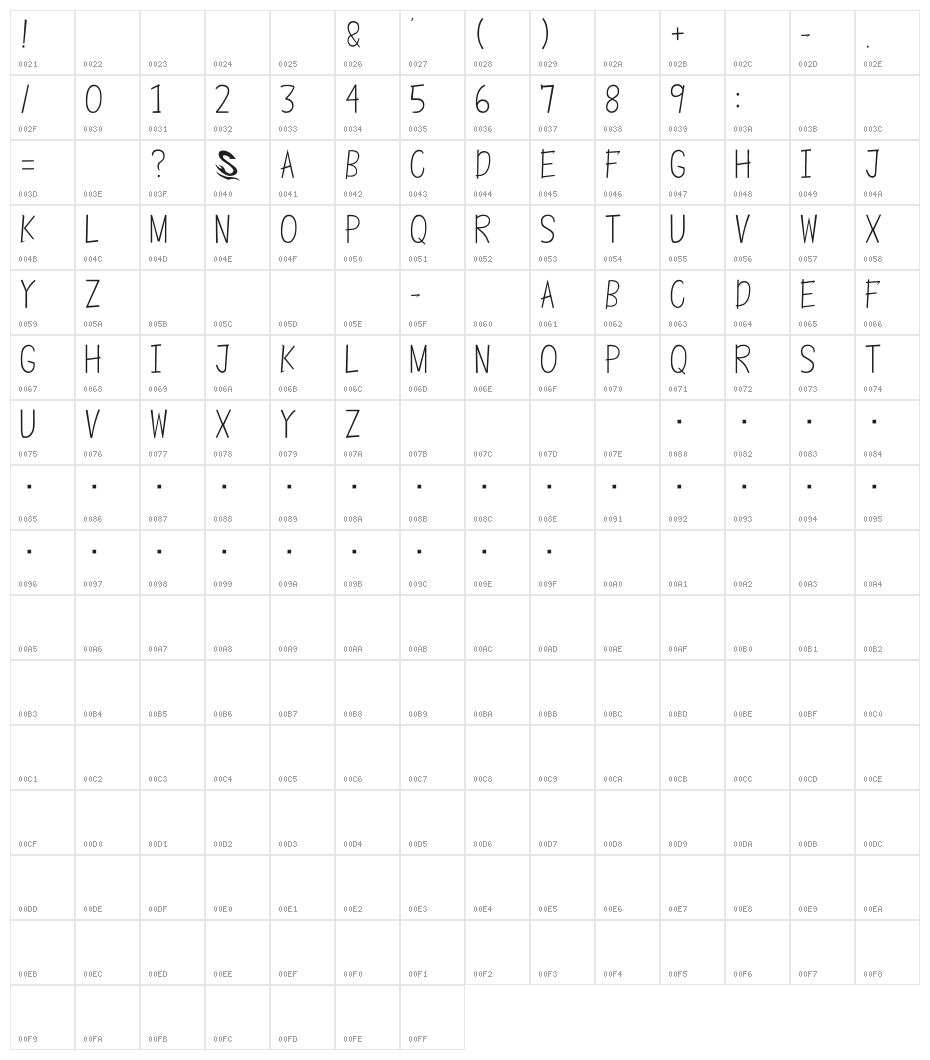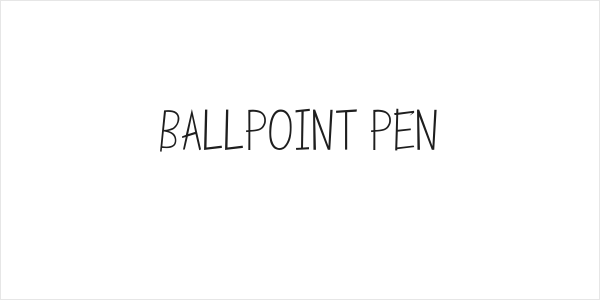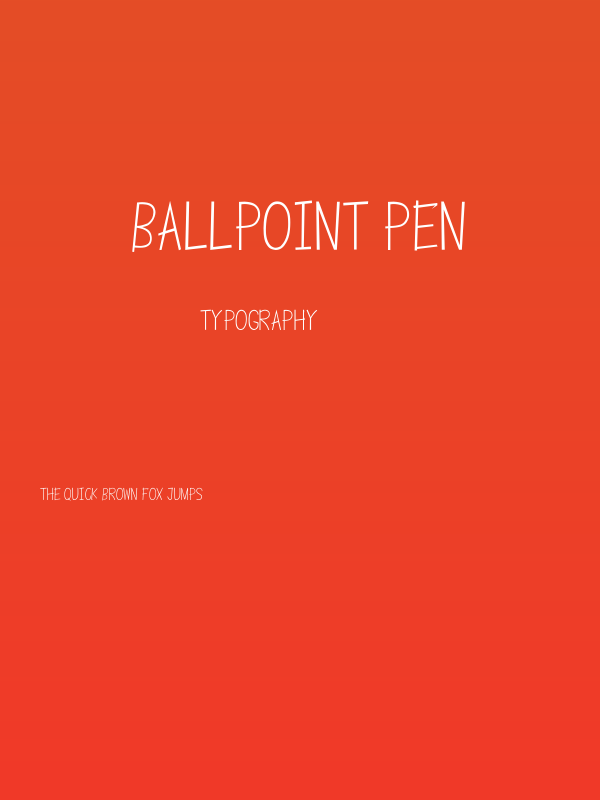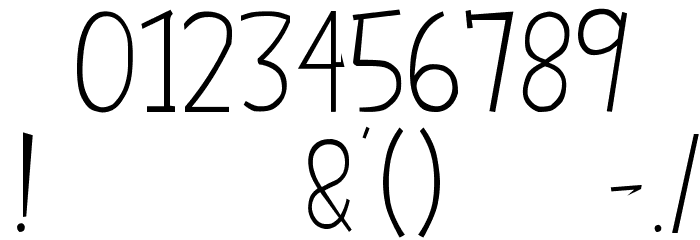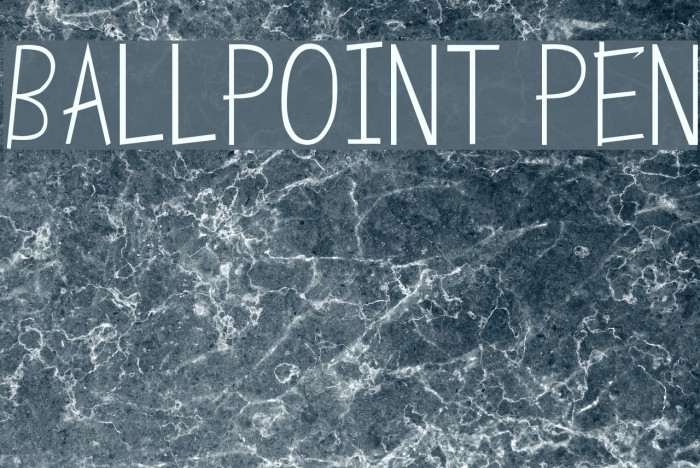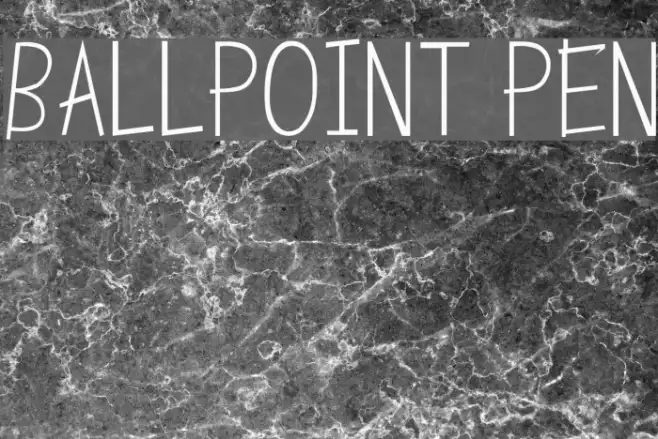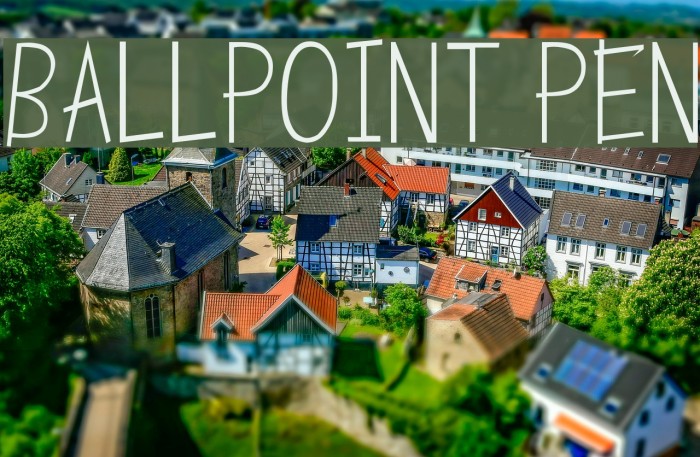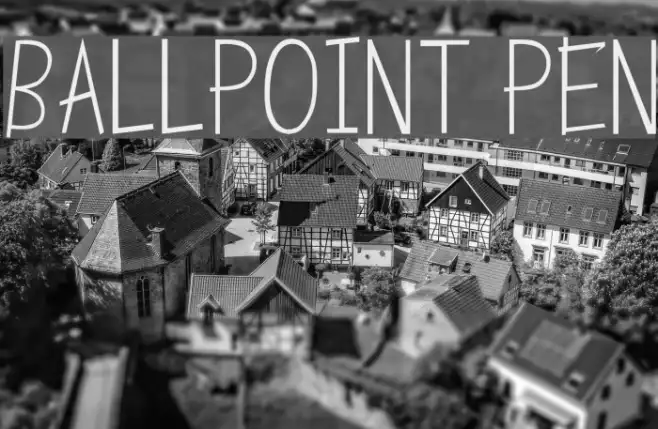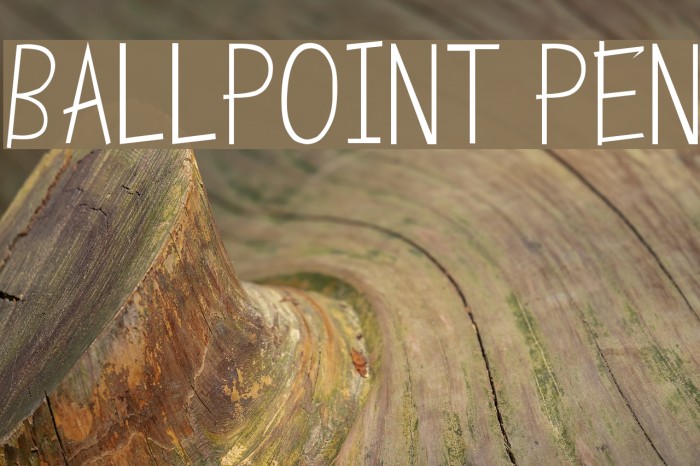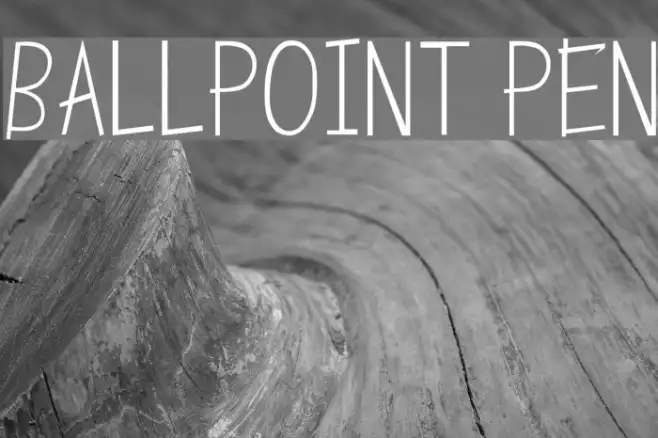
Ballpoint Pen Font
Ballpoint Pen Description
This font exudes a casual, handwritten style reminiscent of notes jotted down with a ballpoint pen. The letters are slightly irregular, with a playful and informal appearance. The strokes are consistent in width, giving it a uniform look, while the slight slant and varying heights add a touch of spontaneity. The uppercase and lowercase letters maintain a cohesive style, with rounded edges and a friendly demeanor. Numbers and special characters follow the same aesthetic, making the font versatile for various informal applications.
| Proposed Projects | Ideal for personal notes, casual invitations, children's books, and creative projects that require a friendly and approachable look. |